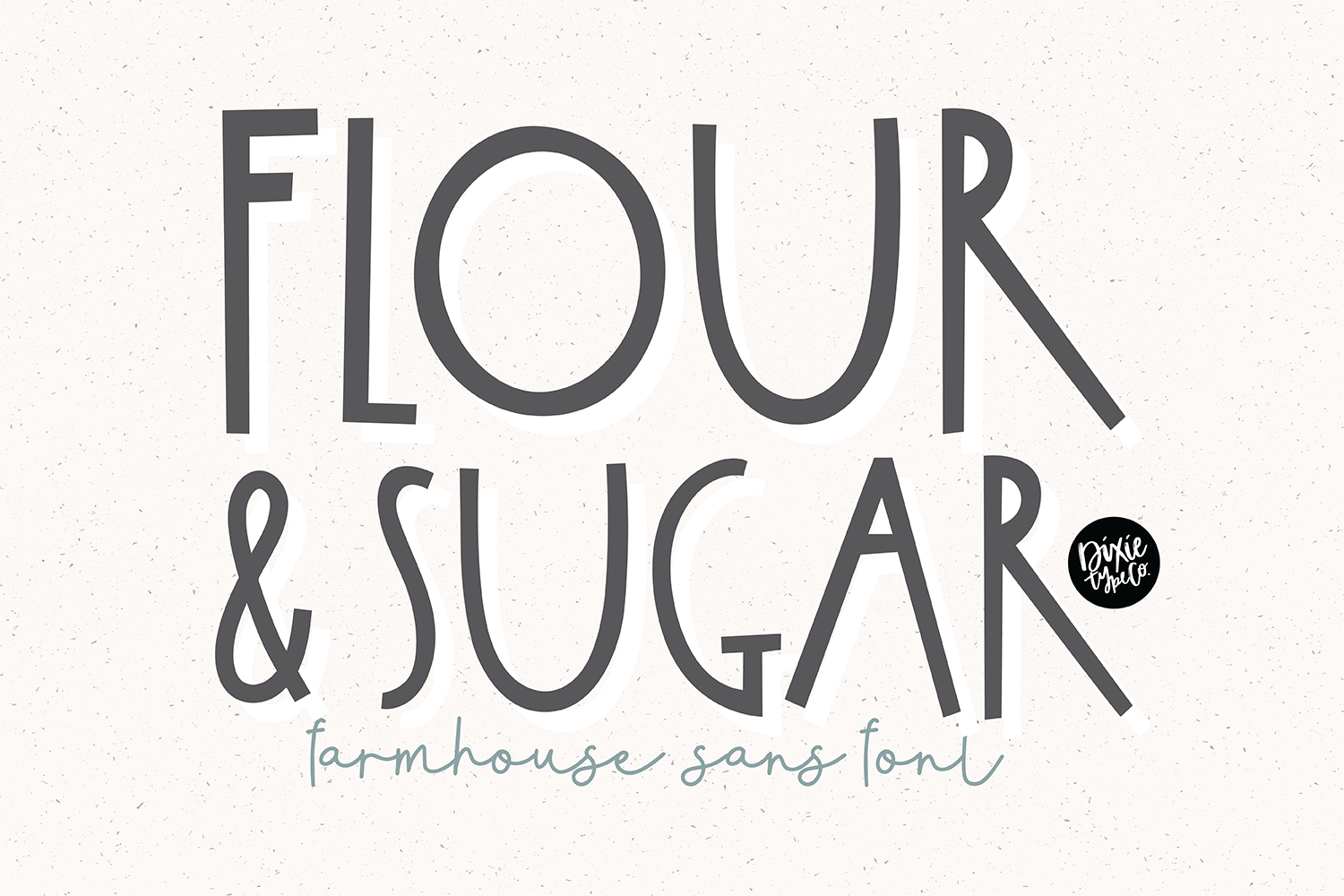
"Flour & Sugar" Farmhouse Font.
Perfect for signs! This is an all-caps font. This listing is for the instant download of the .otf file of this font. This font installs to your computer and types. Flour & Sugar is a tall and medium-weight sans serif font that will compliment any script font. It was made with rustic farmhouse signs and the cottagecore aesthetic in mind. Check out our other farmhouse style fonts that pair perfectly with this one! Font includes: Uppercase glyphs, numbers, and basic punctuation.